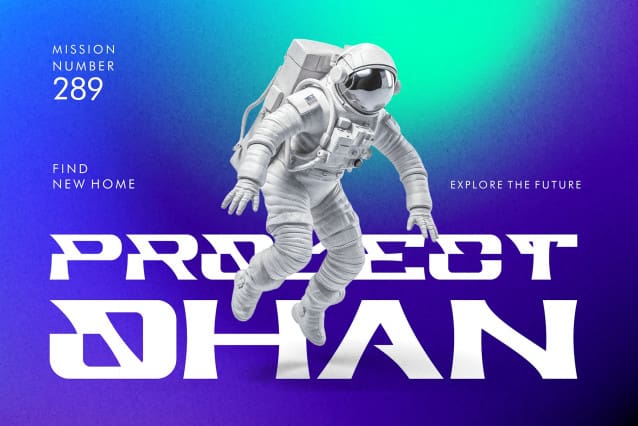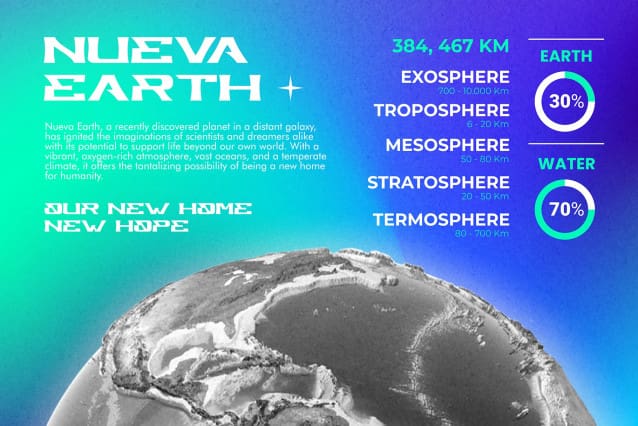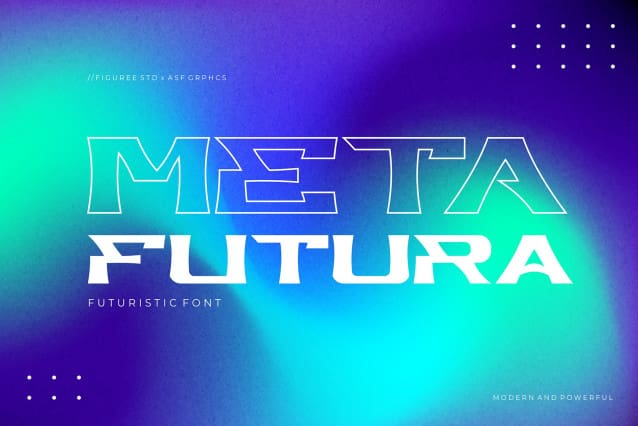
Meta Futura Font
Meta Futura Font is a cutting-edge futuristic font that captures the essence of innovation and technological progress. Its sleek and avant-garde lettering embodies the aesthetics of the future, making it the perfect choice for projects that demand a contemporary, high-tech, and progressive style. Whether it’s used in sci-fi designs, tech branding, or any project seeking to convey a sense of forward-looking sophistication, Meta Futura adds a dynamic and futuristic edge to your typography, setting your text apart with a sleek and visionary flair.